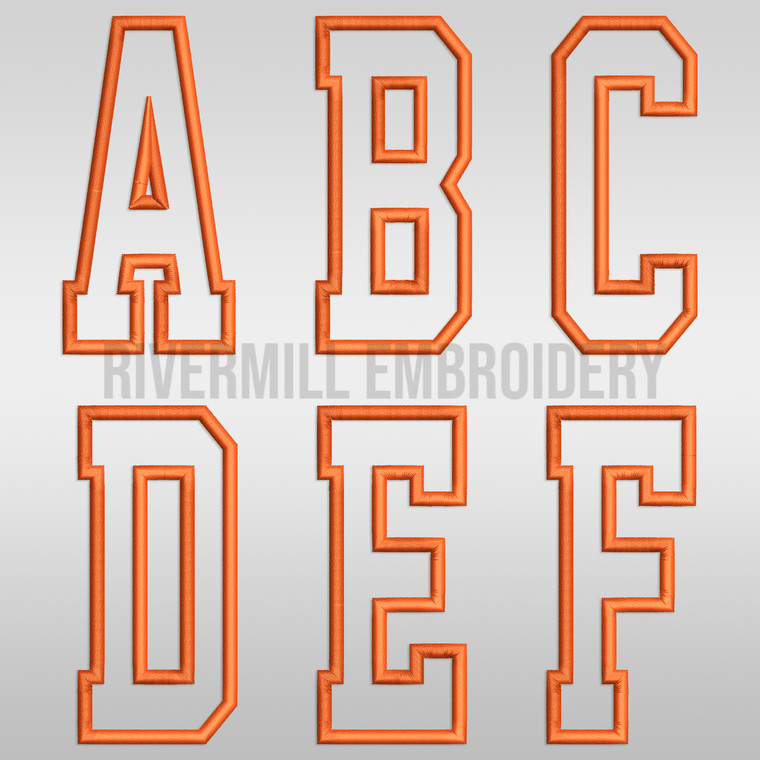
Tall Varsity Collegiate Applique Embroidery Font
You get 4 sizes of this alphabet - this only has upper case letters.
All the letters are applique letters. 104 files total.